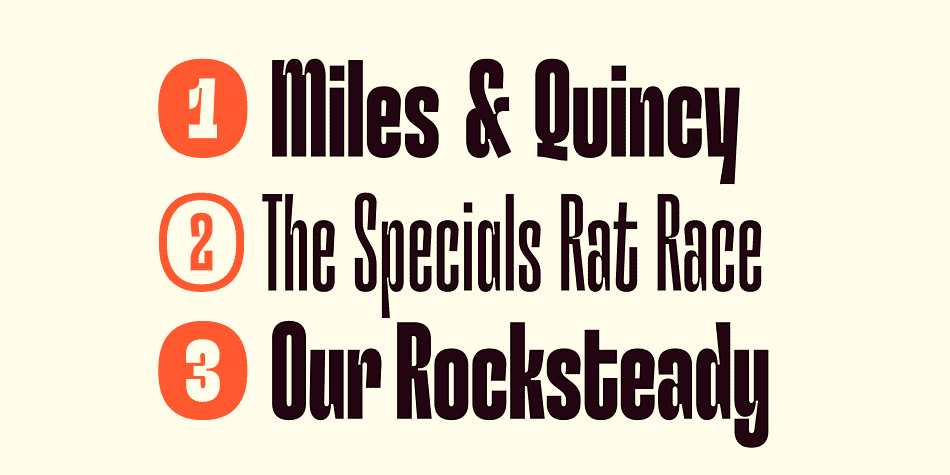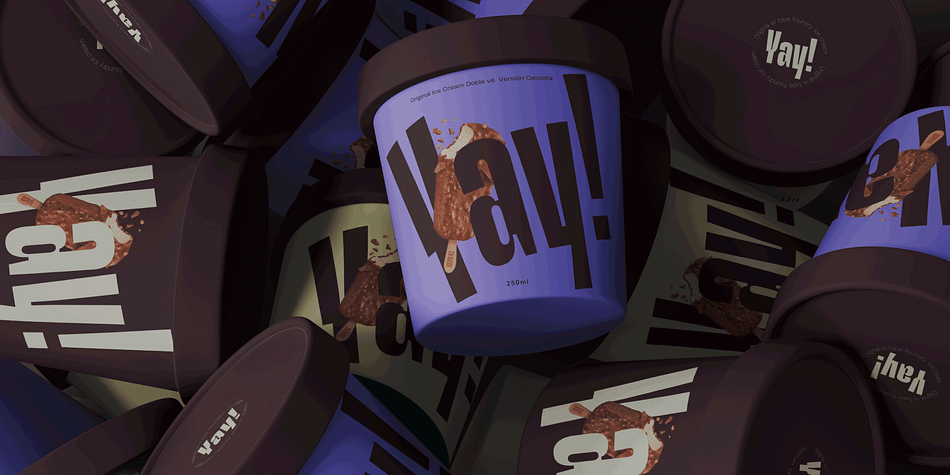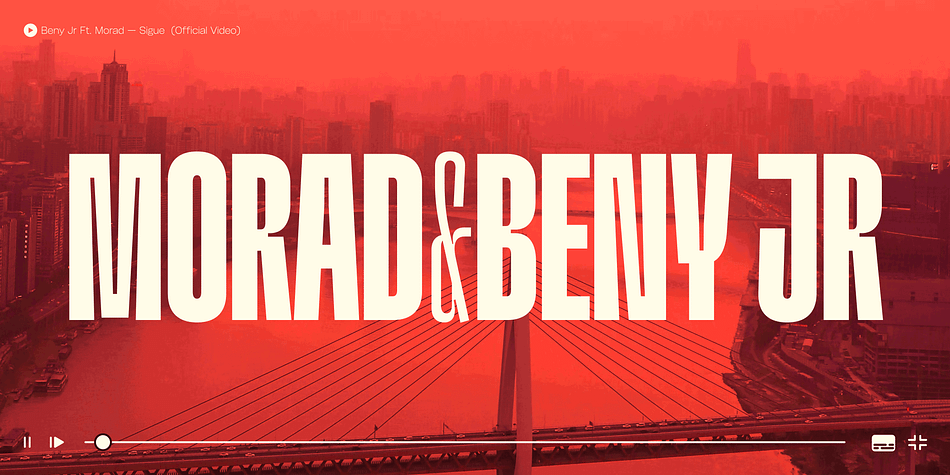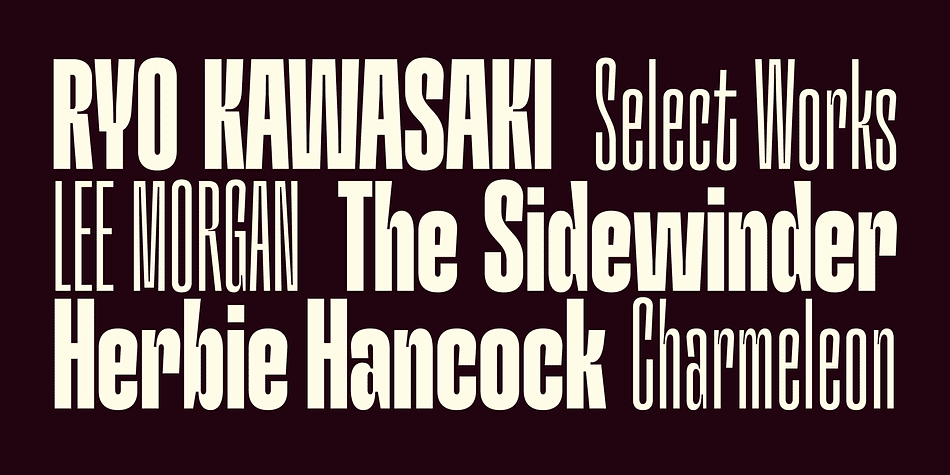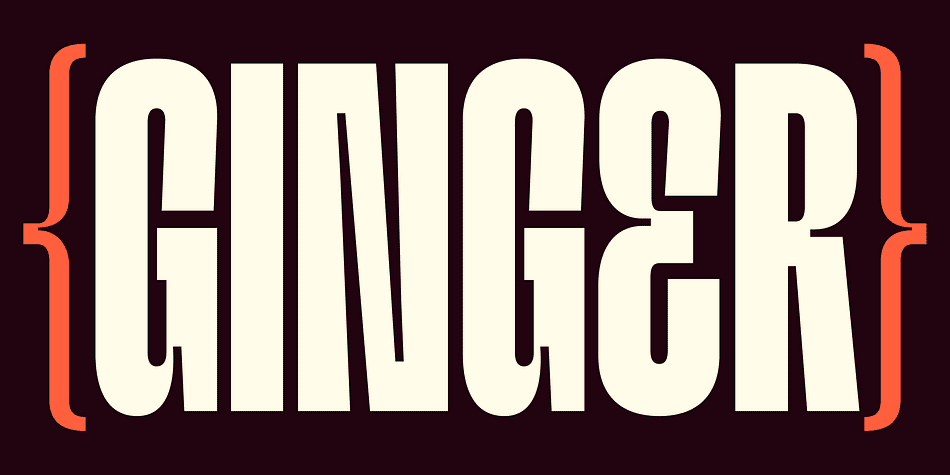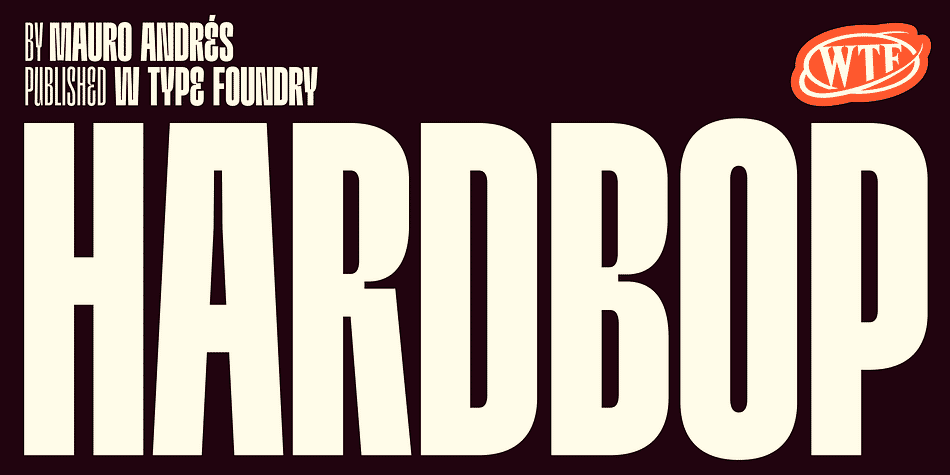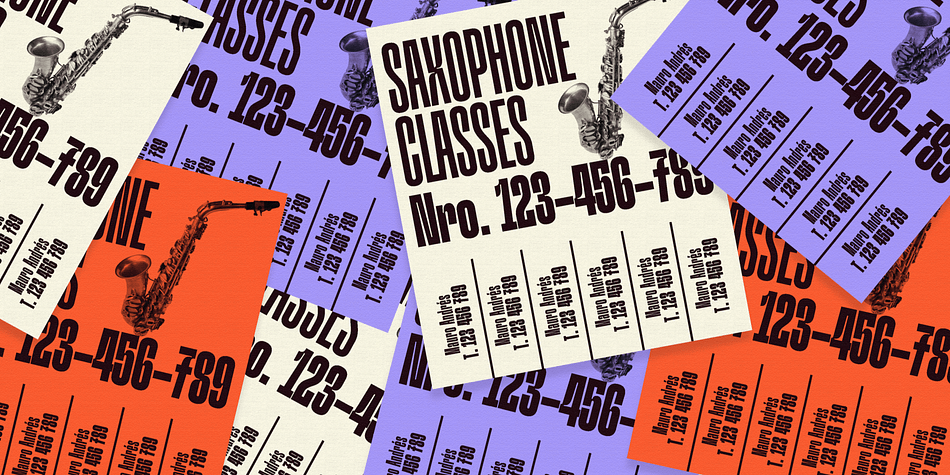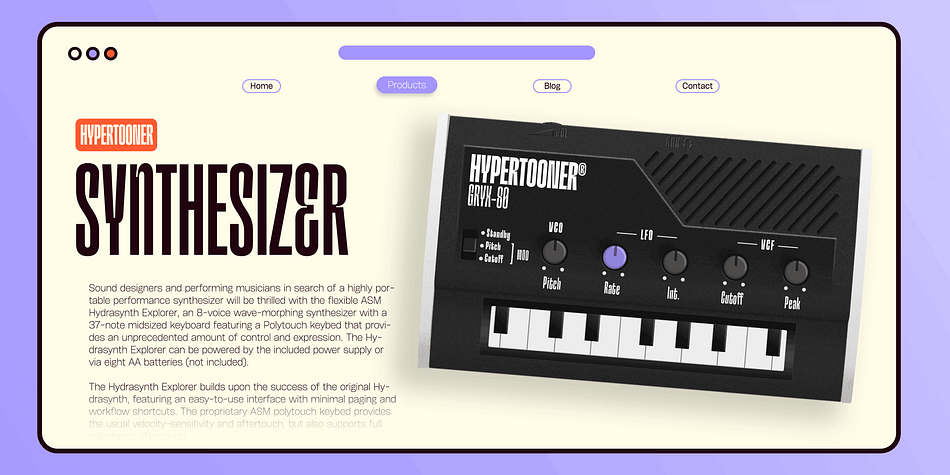
Designed by Mauricio Brito, Hardbop is a display sans and sans serif font family. This typeface has eight styles and was published by W Type Foundry.
Hardbop is a typographic system inspired by jazz, especially the style it’s named after “Hardbop”. It’s also inspired by the prolific graphic work of Reid Miles for the covers of Blue Notes Records in the ‘50s, Japanese jazz album covers of the ‘70s and condensed and grotesque hand painted signs.
Hardbop also references classic fonts such as Impact, Bebas, Din, Frontage and TT Trailers, the latter in the exaggeration of certain characteristics such as counterforms and endings.
Hardbop design works for titles and wide spaces and was specially designed for covers and posters, where its intention is not to go unnoticed. Although it is a small family, it allows game possibilities with a wide set of characters.